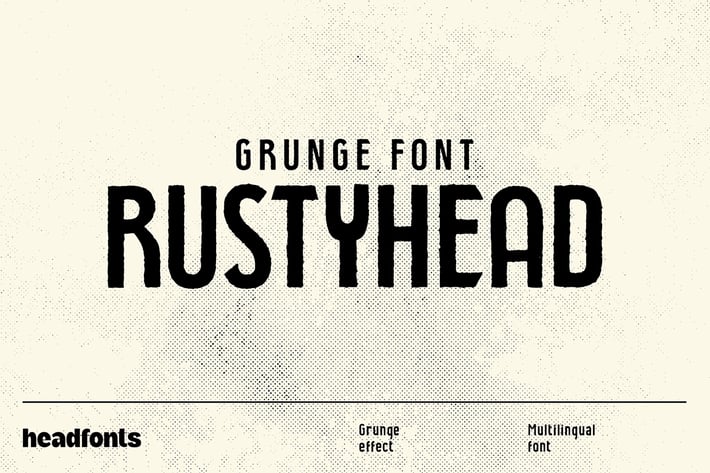
Rustyhead Typeface Font
Introducing RUSTYHEAD, a textured sans serif font with a grungy appearance. The characters were created with brush strokes in Procreate and then carefully converted into vector format, hence the rusty, authentic and textured look. This font offers a ton of possibilities for your projects. It's modern yet playful, it's simple but has that human touch that adds charm and originality to any project. With 252 glyphs, signs and symbols, extensive Latin script support, Rustyhead makes the perfect font for clothing designs, logo designs, packaging or simply as a stylish text overlay to any background image.
- Upper and lowercase font